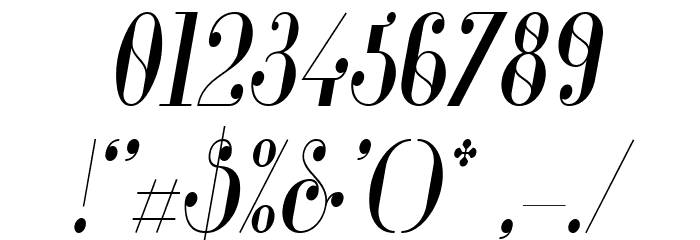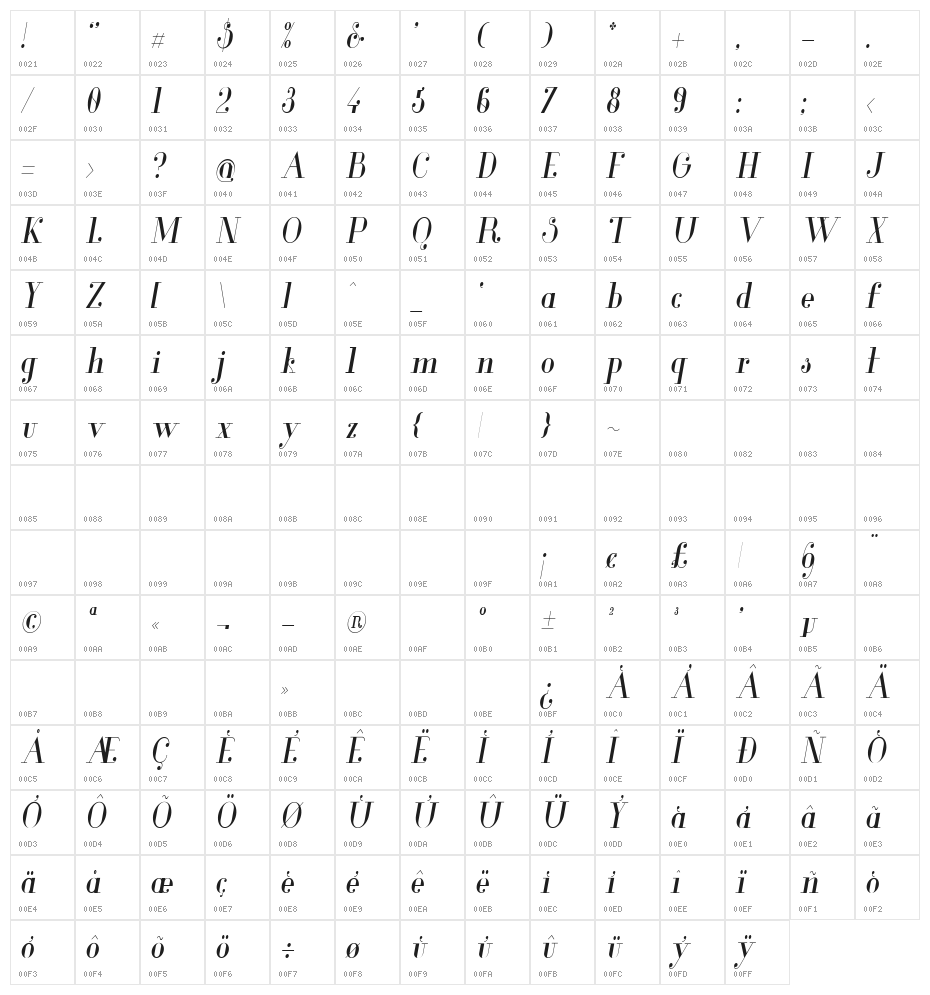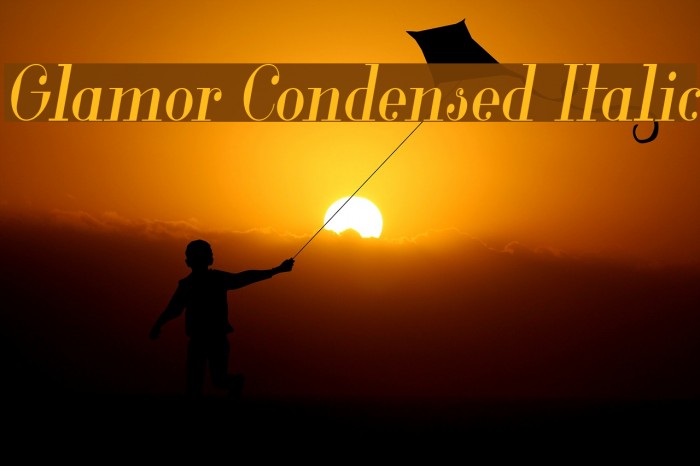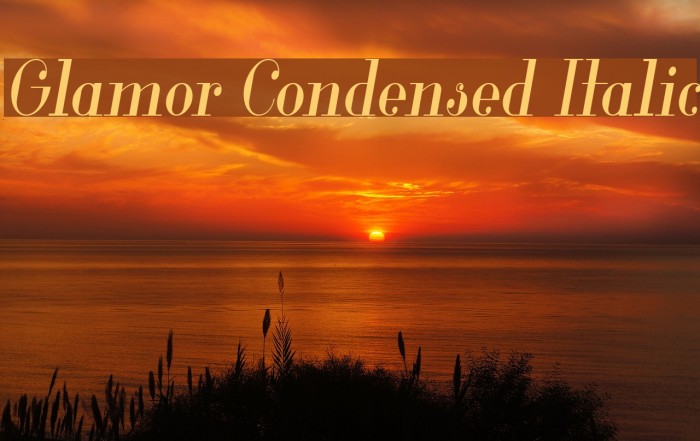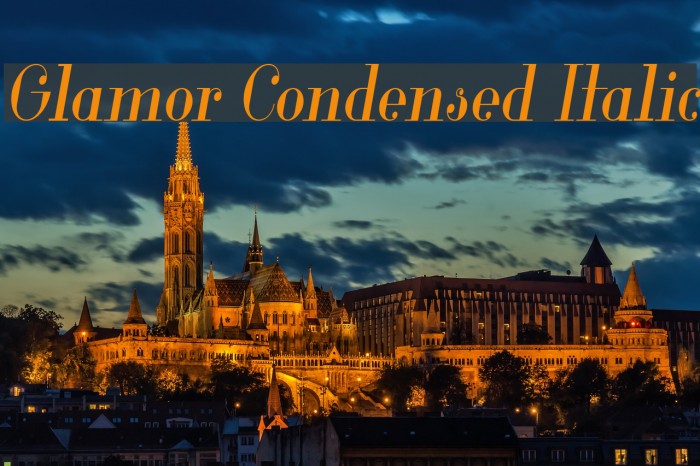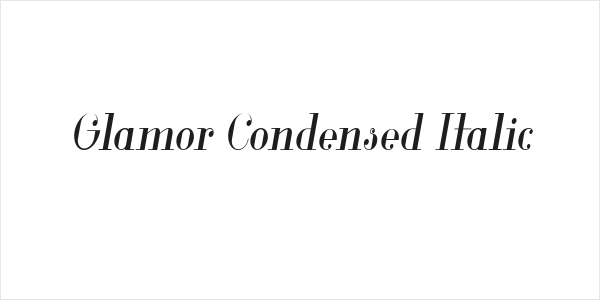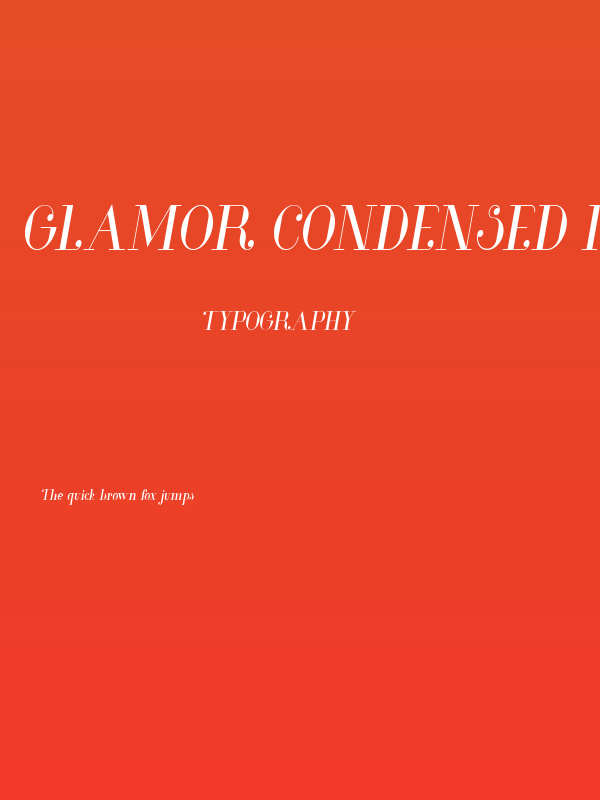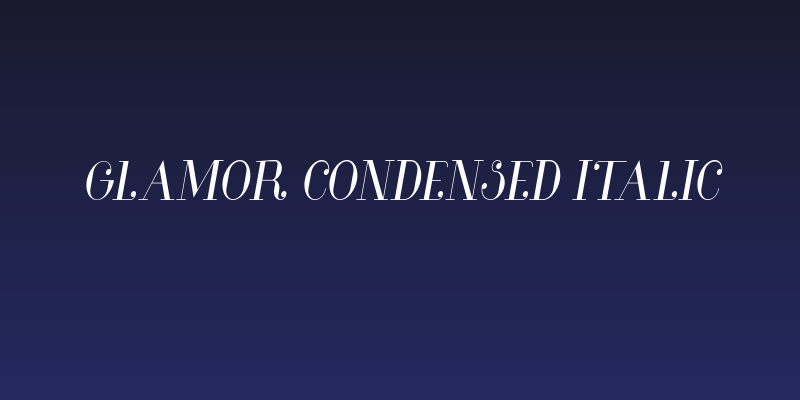
Glamor Condensed Italic Font
Glamor Condensed Italic Description
This elegant and sophisticated font features a condensed and italicized style, characterized by its tall, slender letterforms and high contrast between thick and thin strokes. The uppercase letters are particularly striking, with a graceful slant and distinctive serifs that add a touch of refinement. The lowercase letters maintain the same elegance, with a smooth flow and consistent slant that enhances readability. The numerals are well-proportioned, matching the overall aesthetic of the font. Special characters are thoughtfully designed, integrating seamlessly with the rest of the character set. This font exudes a sense of luxury and modernity, making it ideal for high-end branding and editorial design.